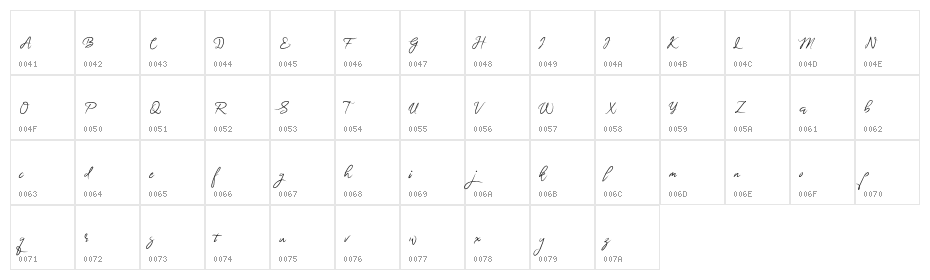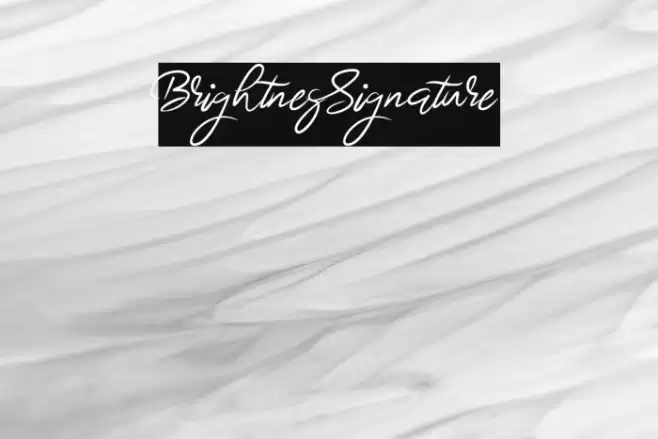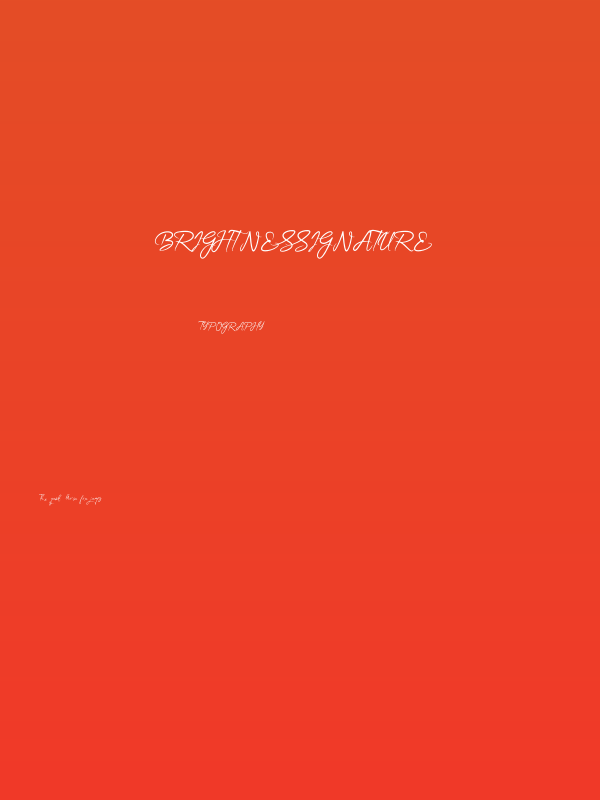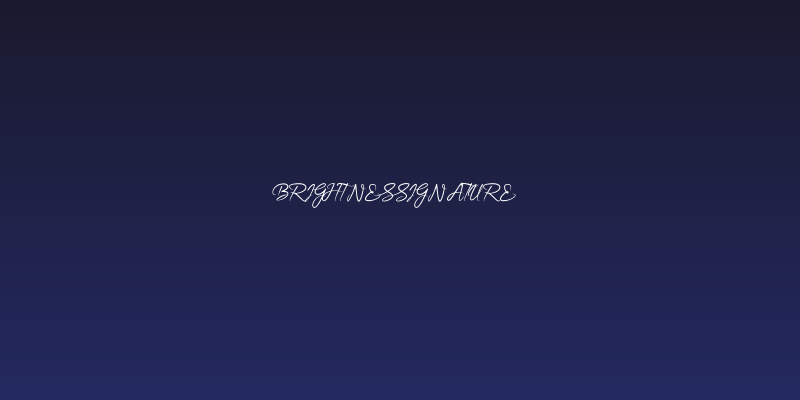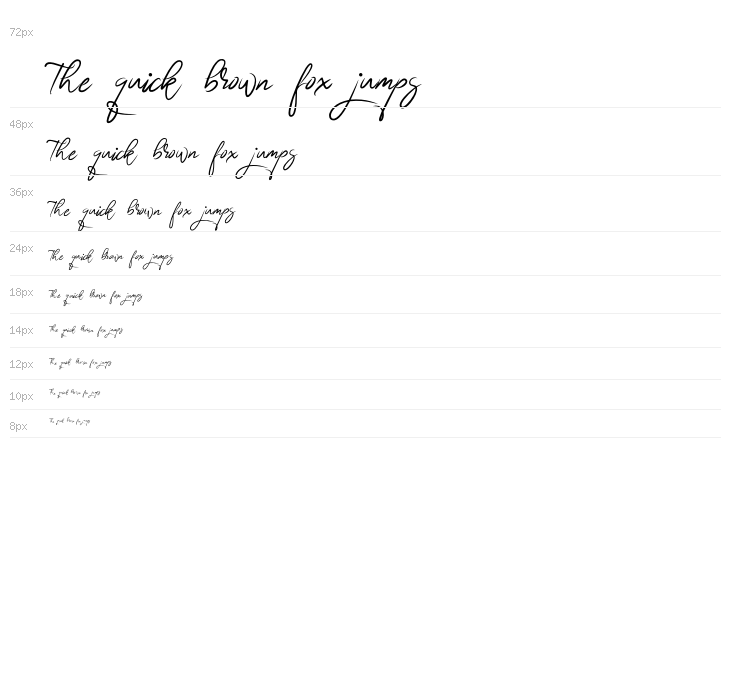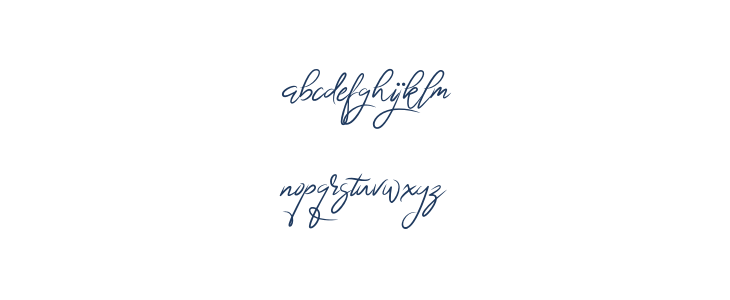
BrightnesSignature Font
BrightnesSignature Description
This elegant script font features a flowing, cursive style with intricate loops and flourishes. The uppercase letters are bold and expressive, while the lowercase letters maintain a consistent, graceful flow. The font exudes a sense of sophistication and charm, making it ideal for formal invitations, branding, and decorative purposes. Its unique character shapes and stylish curves give it a distinctive appearance, perfect for adding a personal touch to any project. The font's overall design is both classic and modern, balancing traditional script elements with contemporary flair.
| Overall Style | Elegant, Classic |
| Proposed Projects | Ideal for wedding invitations, branding, logos, and decorative designs. |